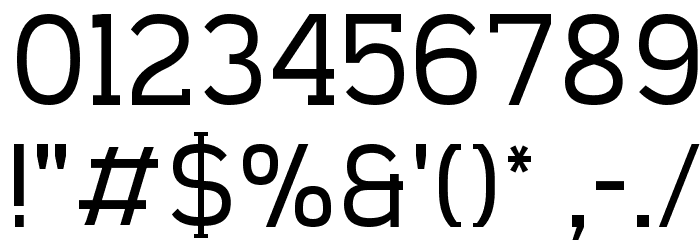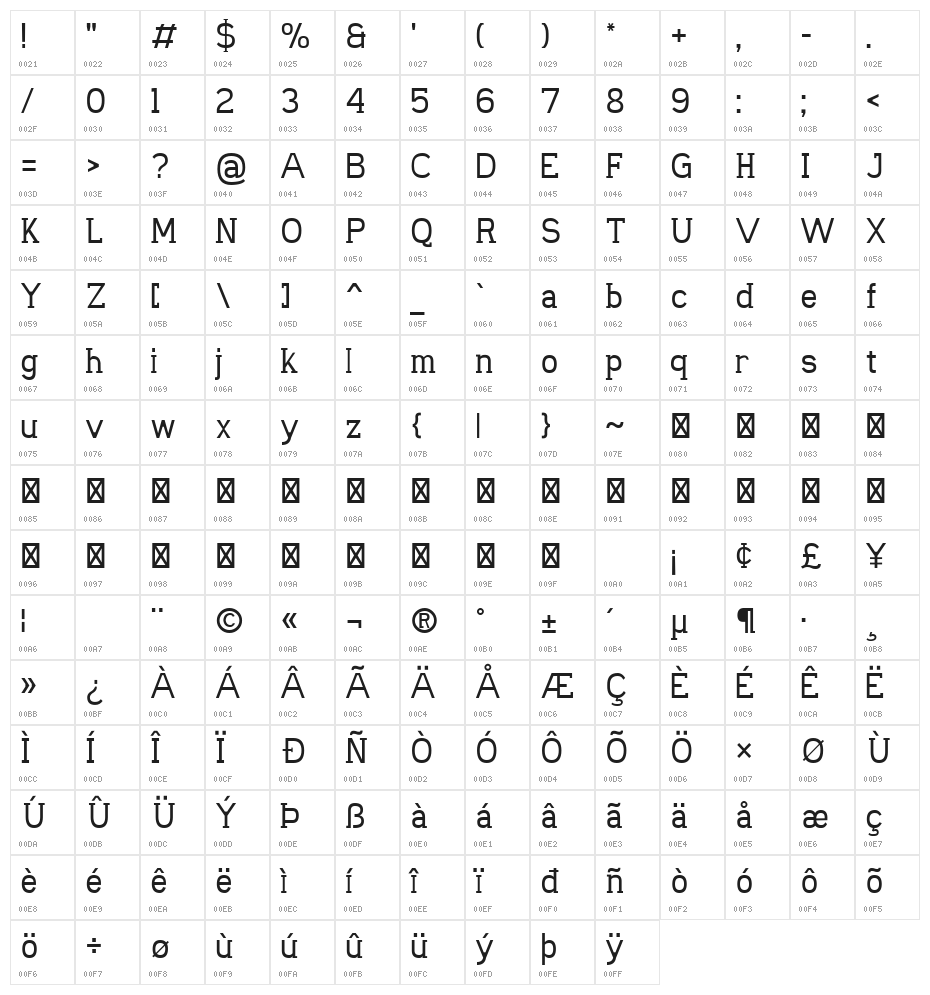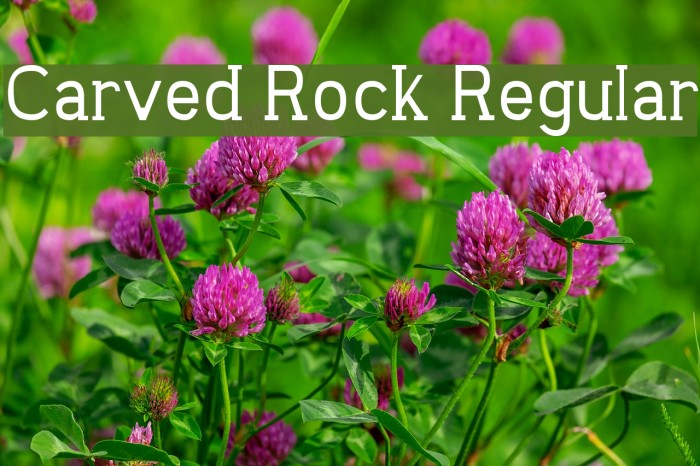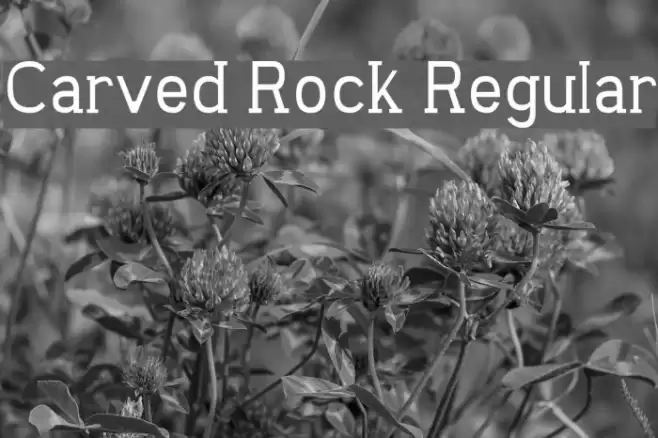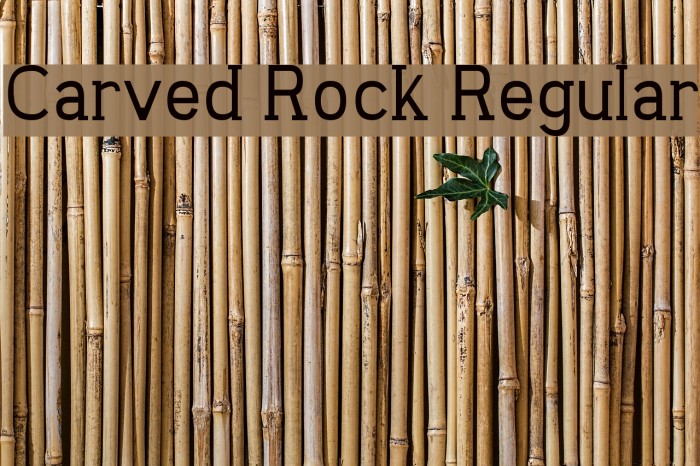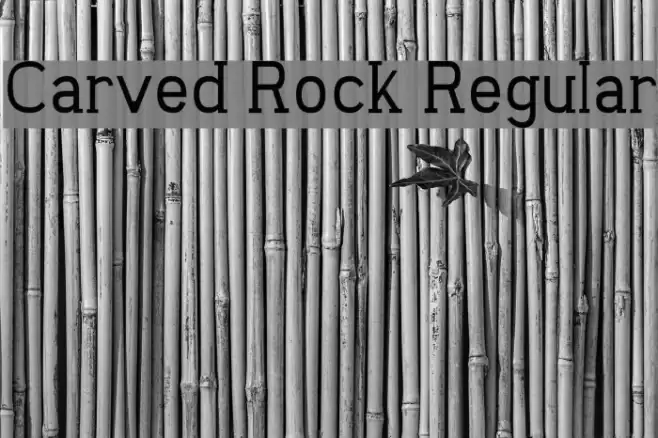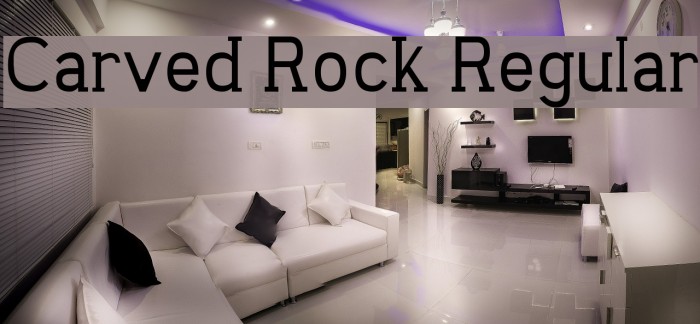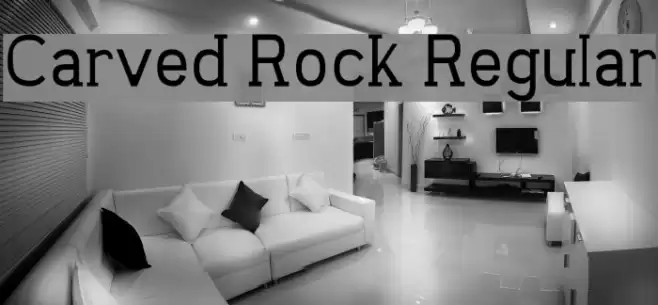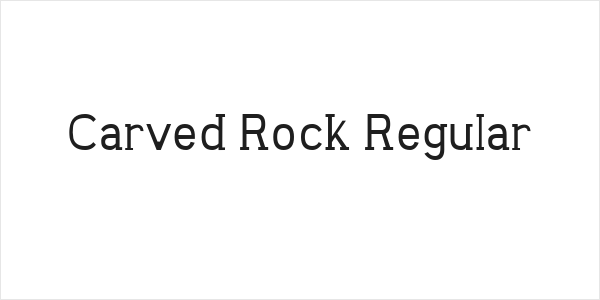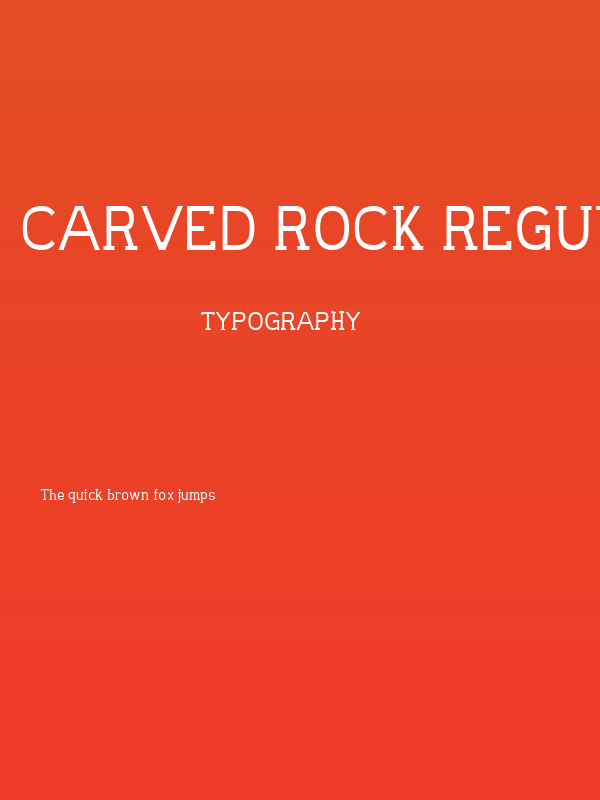
Carved Rock Regular Font
Carved Rock Regular Description
This font features a clean and modern design with a focus on readability and simplicity. The characters are well-proportioned, with a consistent stroke width that gives it a balanced appearance. The uppercase letters are bold and assertive, while the lowercase letters maintain a friendly and approachable feel. The numerals are clear and easy to distinguish, making them suitable for various applications. Special characters are thoughtfully designed, ensuring they blend seamlessly with the rest of the font. Overall, this font exudes a professional yet inviting aesthetic, making it versatile for numerous design projects.